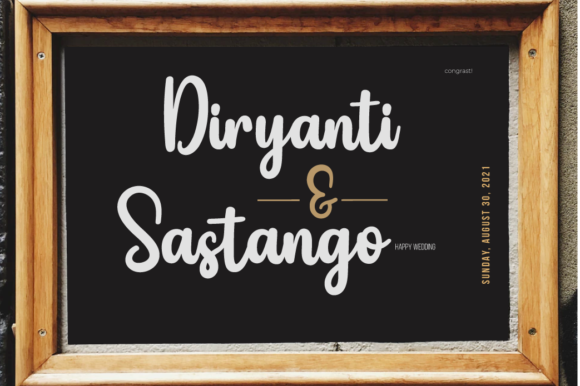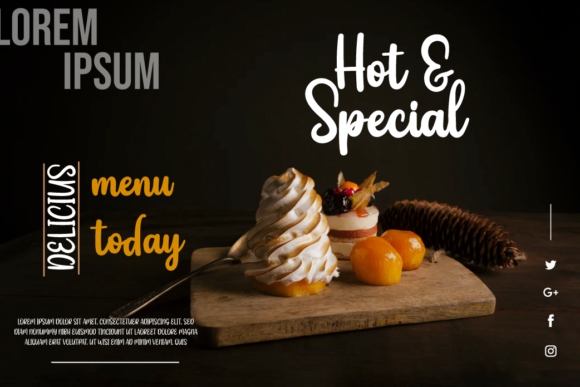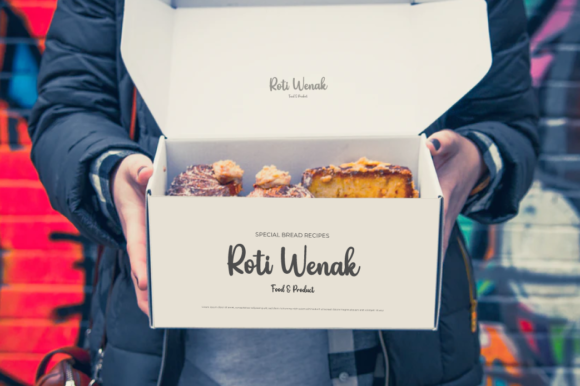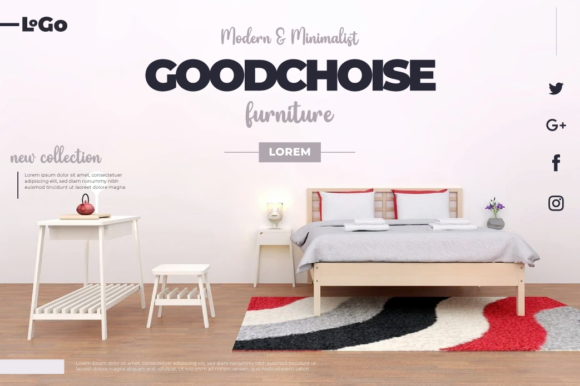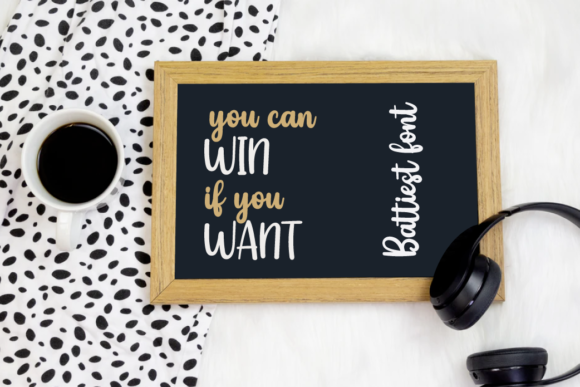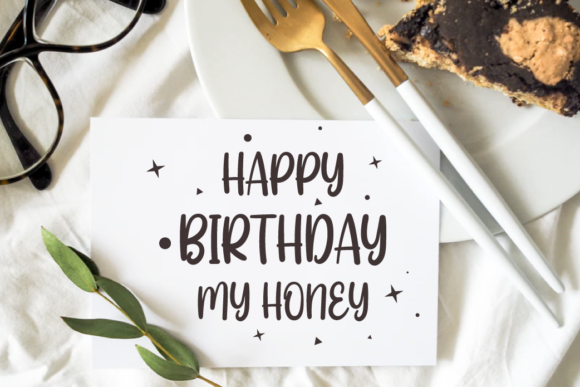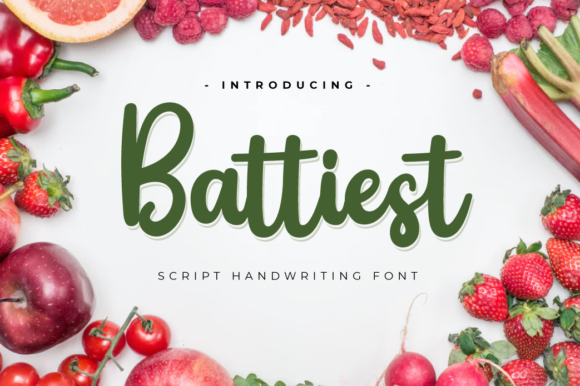
The Perfect Script for Your Next Big Design Project
Have you ever stared at a blank page, trying to come up with the perfect font to match your creative vision? The moment of clarity is always a thrilling one – and that’s exactly what happened when we discovered the Battiest Font.
This stunning handwritten font is a game-changer for designers looking to add a touch of elegance and sophistication to their work. Whether you’re creating a formal logo or a casual quote, Battiest Font is the perfect choice. Its versatility and beauty make it a valuable asset for any designer looking to take their designs to the next level.
With Battiest Font, the possibilities are endless. From branding and logos to quotes and social media graphics, this font is sure to make your designs stand out from the crowd.
Battiest Font Key Features
- Size: The font family consists of multiple weights, ranging from Thin (100) to Black (900), providing a wide range of design possibilities.
- Unique Characteristics: Battiest Font features a bold, playful, and energetic design, making it perfect for creating attention-grabbing headlines and titles.
- Language Support: The font includes comprehensive language support, covering Latin, Cyrillic, and Greek alphabets, ensuring its usability in various international designs.
- Kerning and Ligatures: Battiest Font includes carefully crafted kerning and ligature pairs, ensuring seamless text rendering and a polished, professional look.
Battiest Font Review
Overall, I’m torn about the Battiest Font. On one hand, I appreciate its unique approach to typography. ✨ The font’s erratic lines and shapes add a touch of whimsy to any design project, making it perfect for eye-catching headings or titles.
- ✨ Playful and attention-grabbing, perfect for headlines and titles.
- ✨ Offers a wide range of font weights, ensuring you can find the right fit for your design.
- ✨ Excellent for creating a sense of movement and energy in your design.
However, there are some limitations to consider. ⚠️ The font’s irregularity can make it difficult to read at smaller sizes, and it may not be the best choice for large blocks of text. Additionally, the font’s bold weights can sometimes look cluttered and overwhelming.
- ⚠️ Difficult to read at smaller sizes due to its irregular lines.
- ⚠️ May not be suitable for large blocks of text.
- ⚠️ Bold weights can appear cluttered and overwhelming.
Overall, I think the Battiest Font is a fun and quirky addition to any designer’s toolkit. While it may not be the best choice for every project, it’s definitely worth considering for designs that need a bit of flair and personality.
Tips for Getting the Most Out of Battiest Font
* Use the font in moderation to avoid overwhelming your design.
* Pair the font with a contrasting background to make it stand out.
* Experiment with different font sizes and styles to create visual interest.
* Headlines and titles
* Social media graphics
* Brochures and flyers
* Presentation titles and subtitles